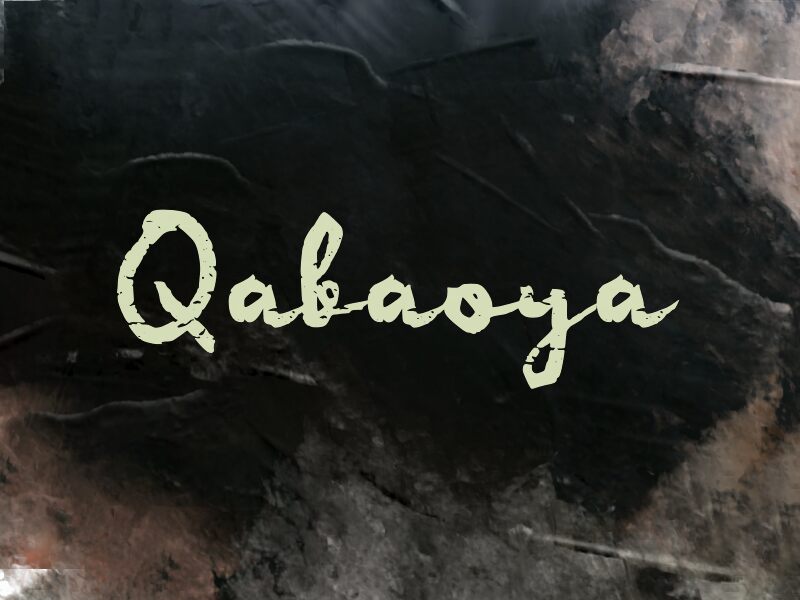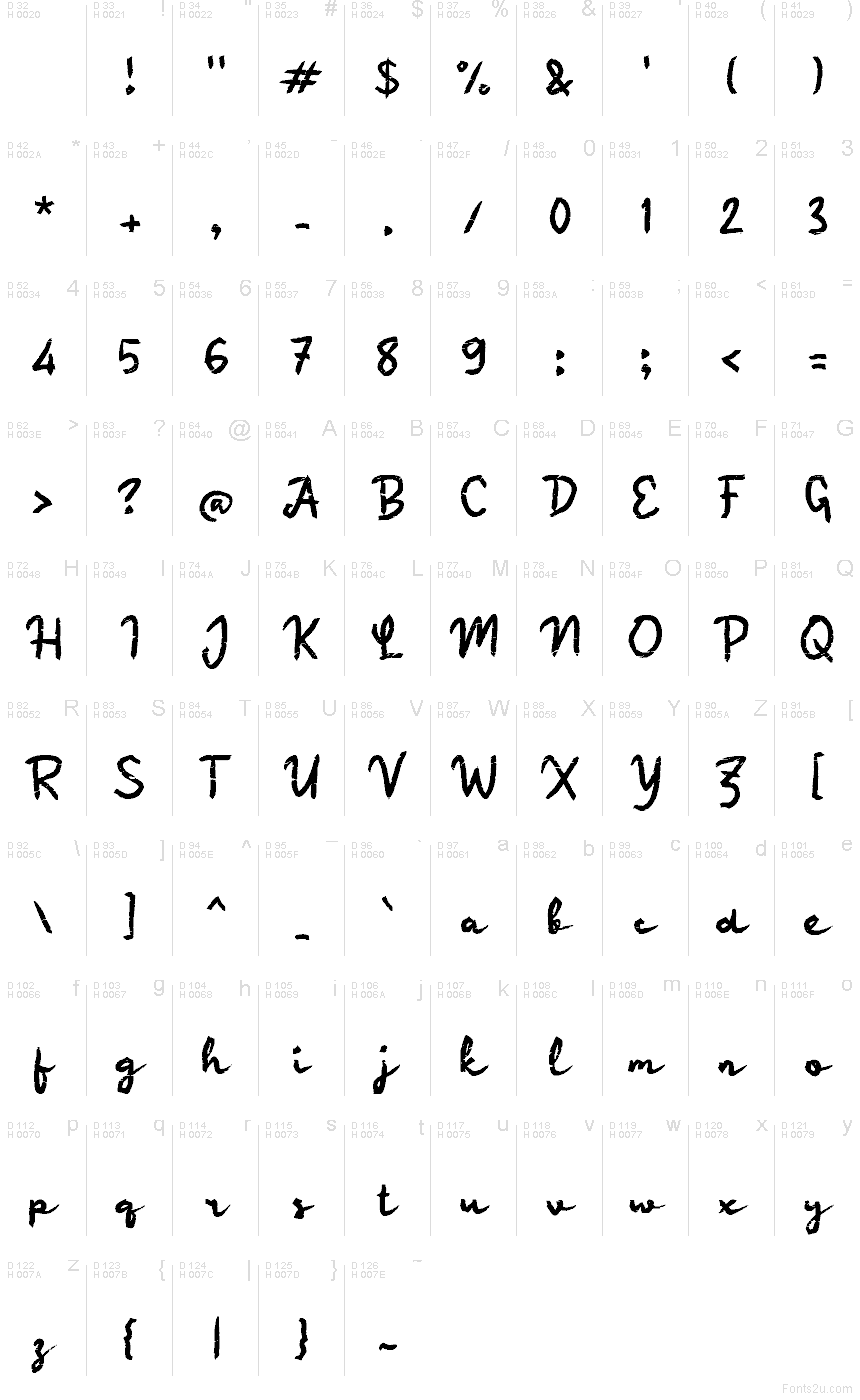
Qabaoya
Qabaoya font by wep is a free brush script typeface with a gritty, ink-splattered twist. Its strokes feel like they’ve been dragged across rough paper—chunky in some spots, worn and broken in others—so the letters pulse with energy instead of looking too clean or polished. The flowing, slightly slanted rhythm gives it a handwritten flair, while the distressed texture keeps it raw and rebellious.
Using Qabaoya, this free font shines on album covers, bold poster titles, zines, streetwear branding, edgy packaging, and social media graphics that need attitude. The irregular texture helps headlines grab attention even from a distance, adding a tactile, DIY feel to digital layouts. For balance, pair Qabaoya with a simple, geometric sans serif in smaller text and let this brush script handle the loudest line on the page.